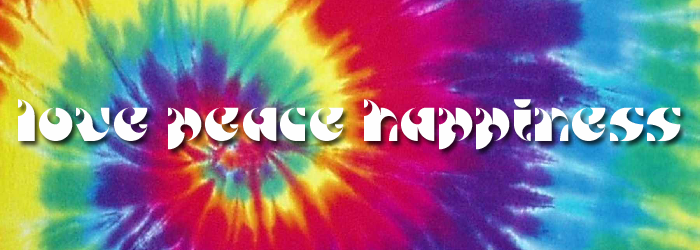
love peace happiness
Looks very nice, with a hint of AFT/CT/NE's style. 10/10+fav, and looking forward to that sample!
Very playful and decorative 60s style chunky font, great.
Great sample and great font!
Greatful work! 10/10